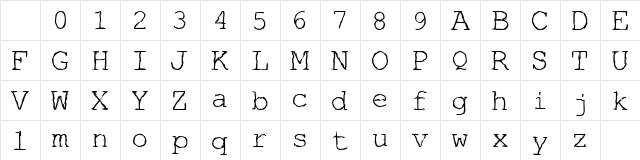
Screenwriter's Nightmare Regular
Complete Screenwriter's Nightmare Regular glyph index. Displaying only characters natively supported by Screenwriter's Nightmare Regular font.
Design Context for Screenwriter's Nightmare
Screenwriter's Nightmare is a composed and adaptable typeface that performs quietly and consistently across a wide range of design contexts.